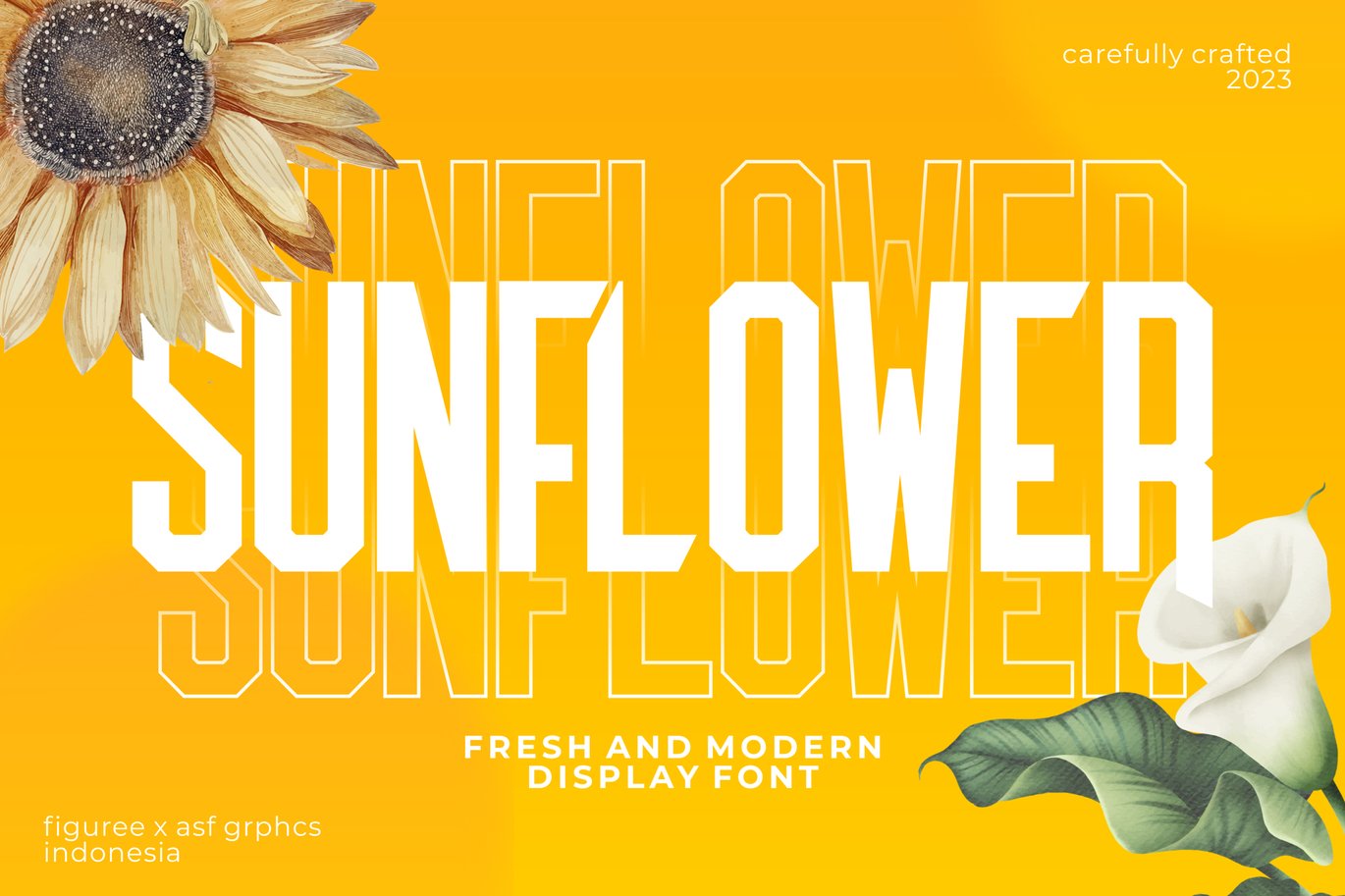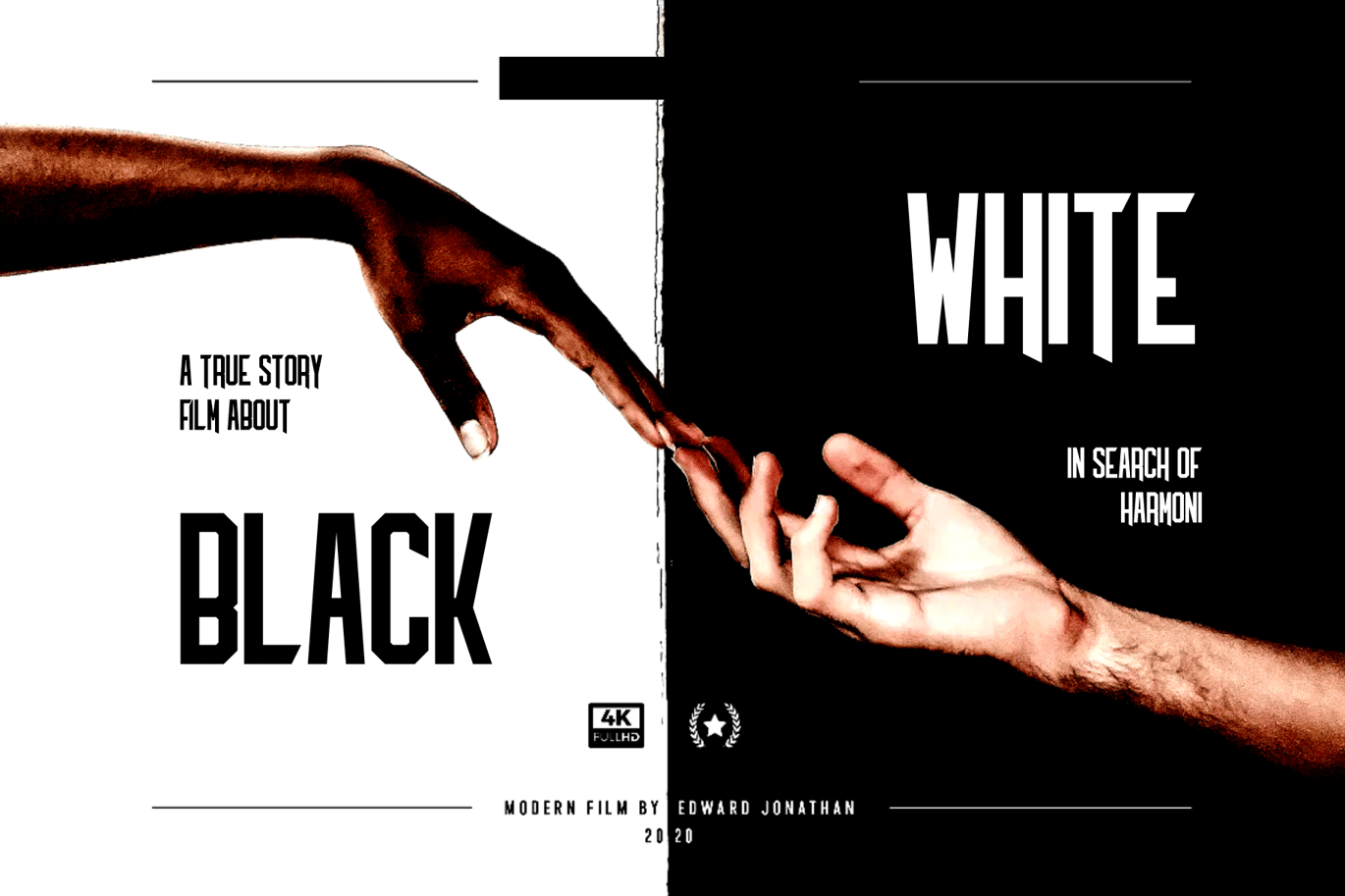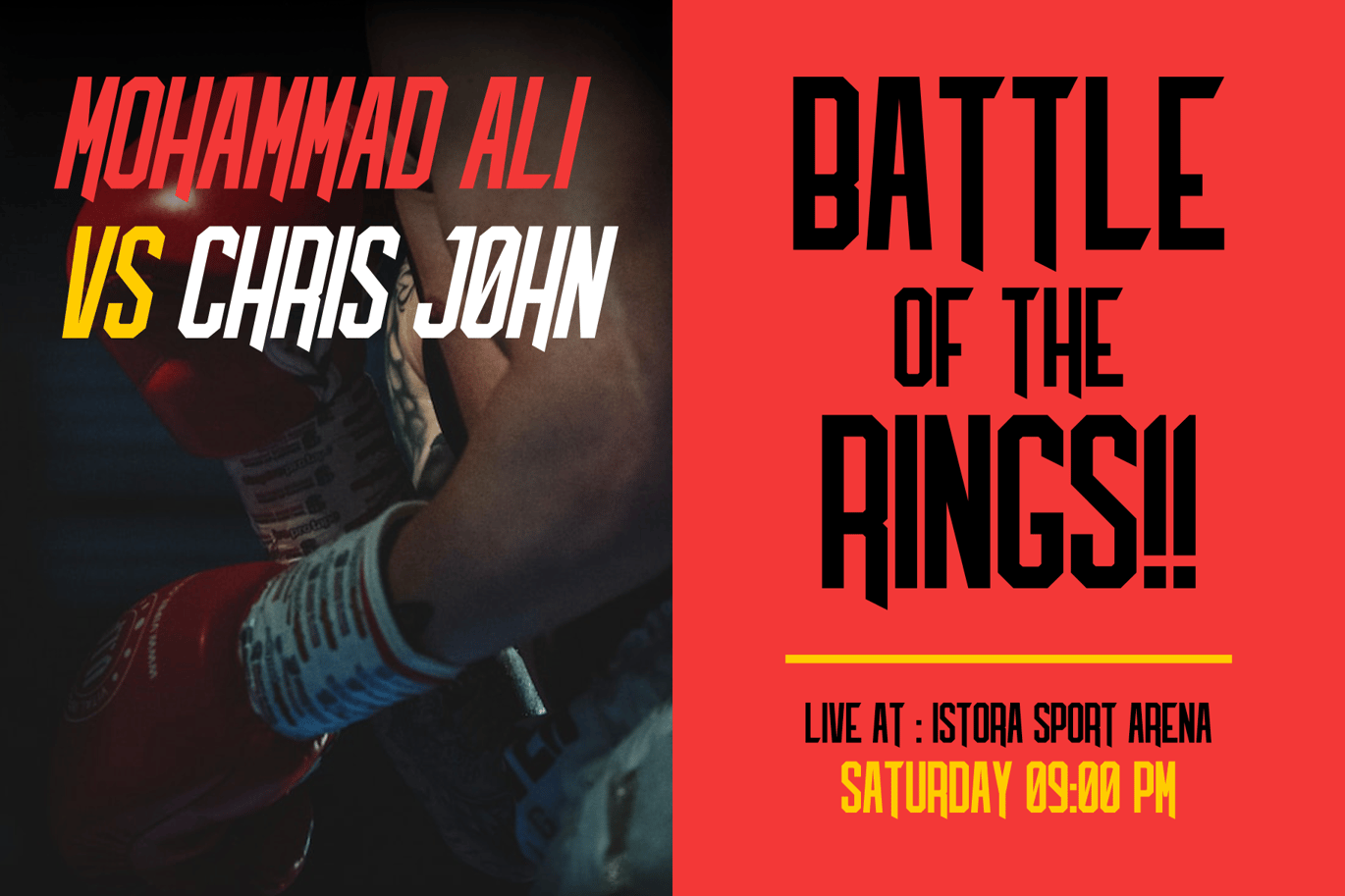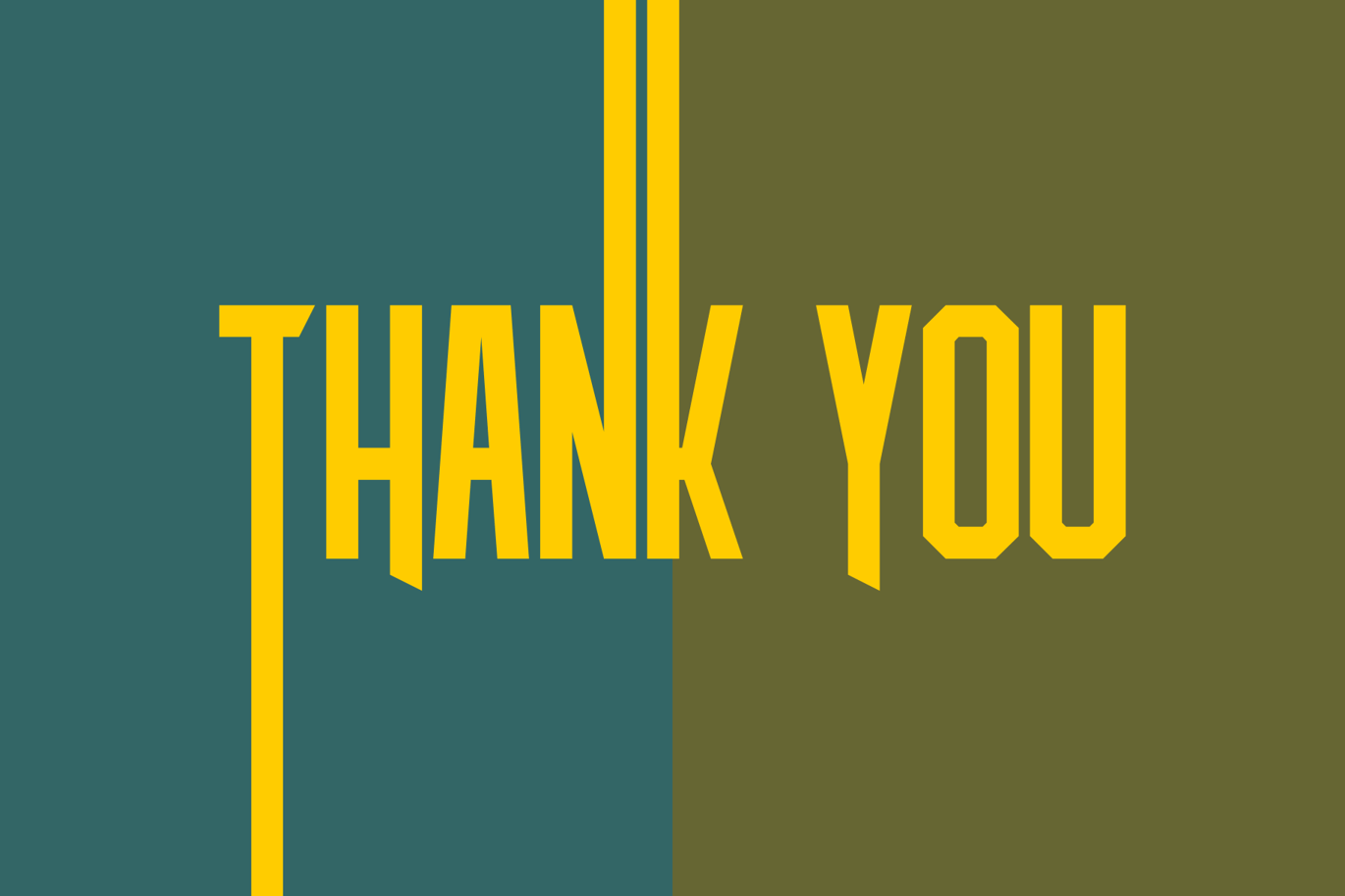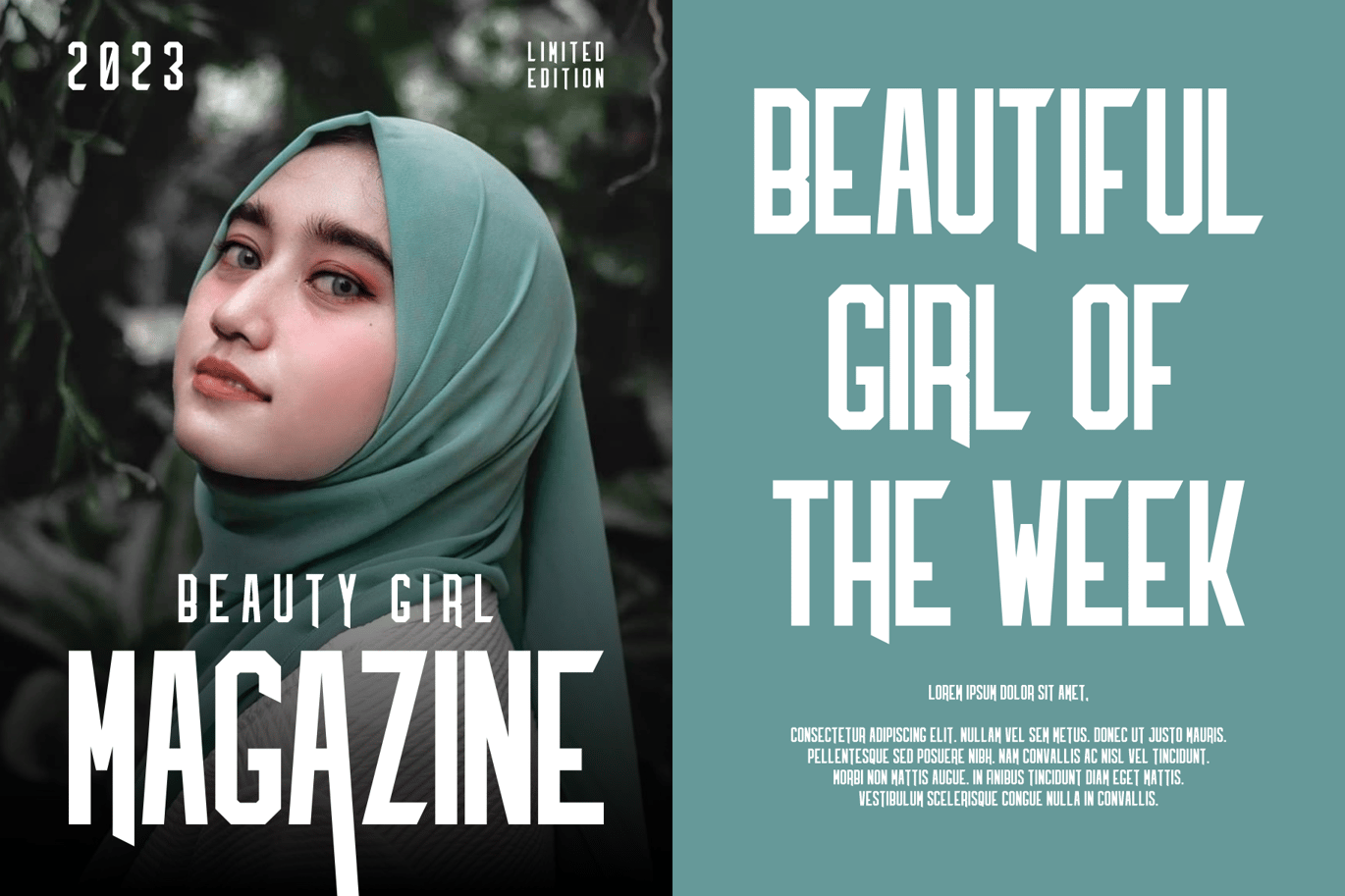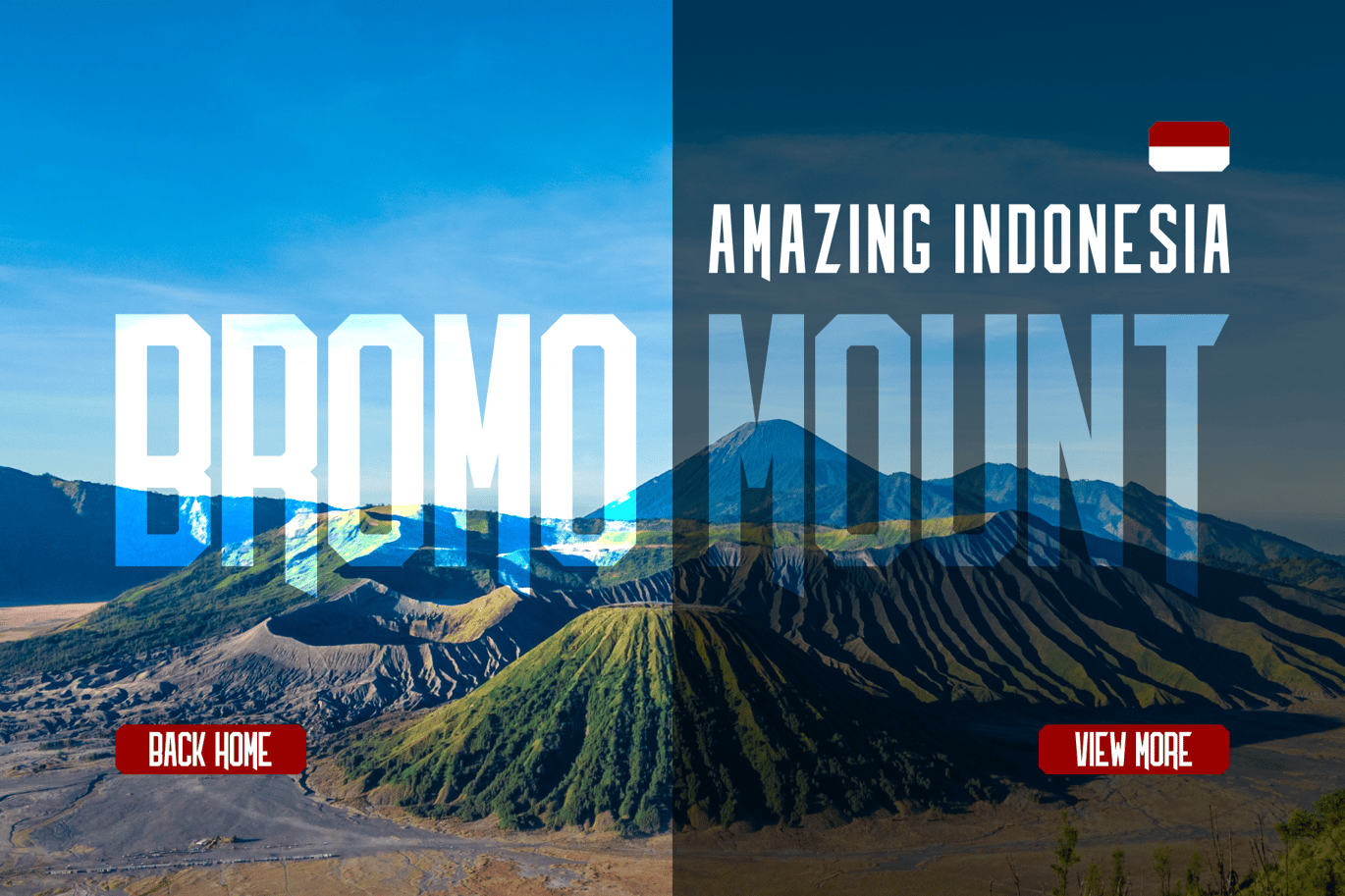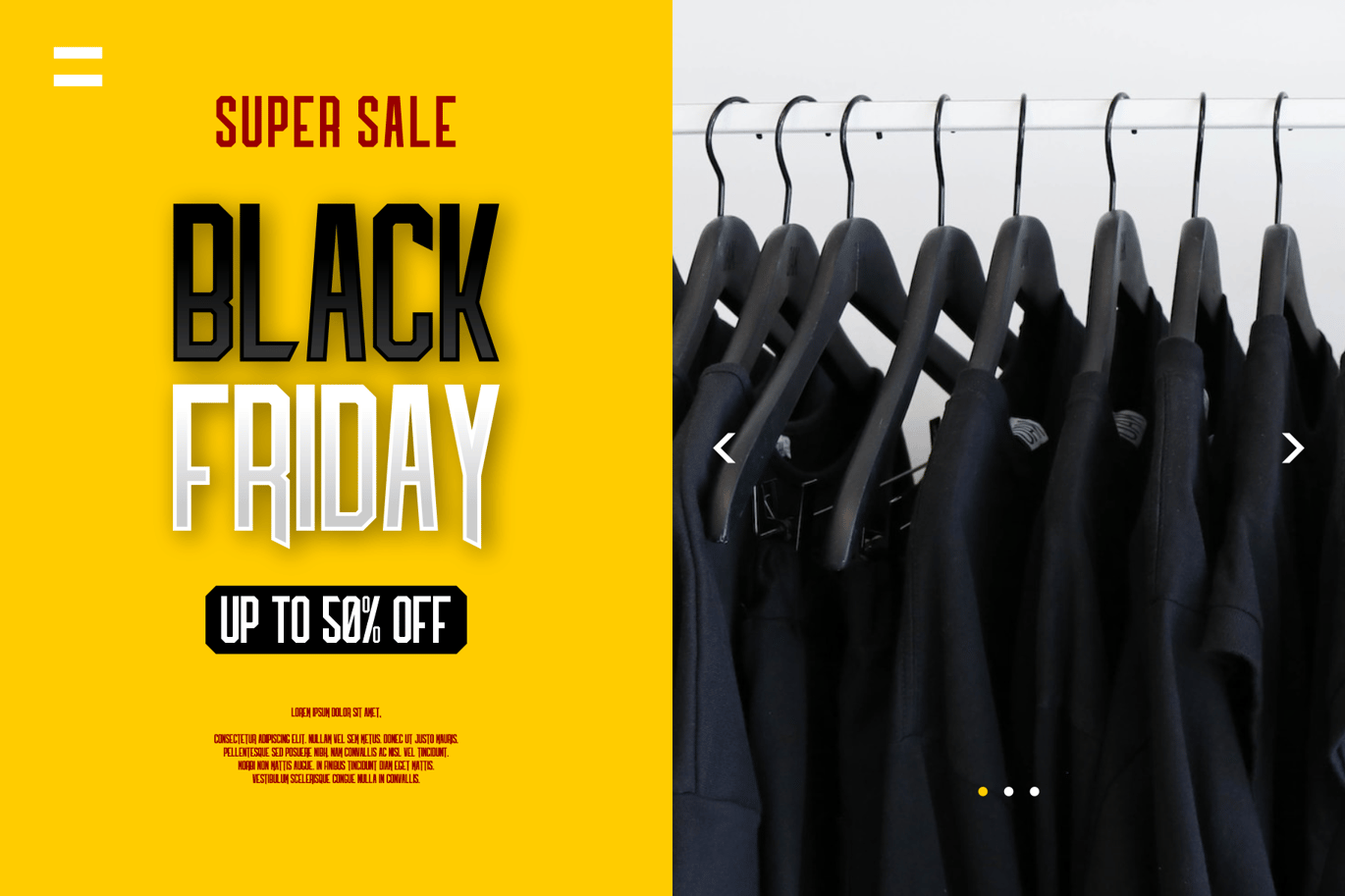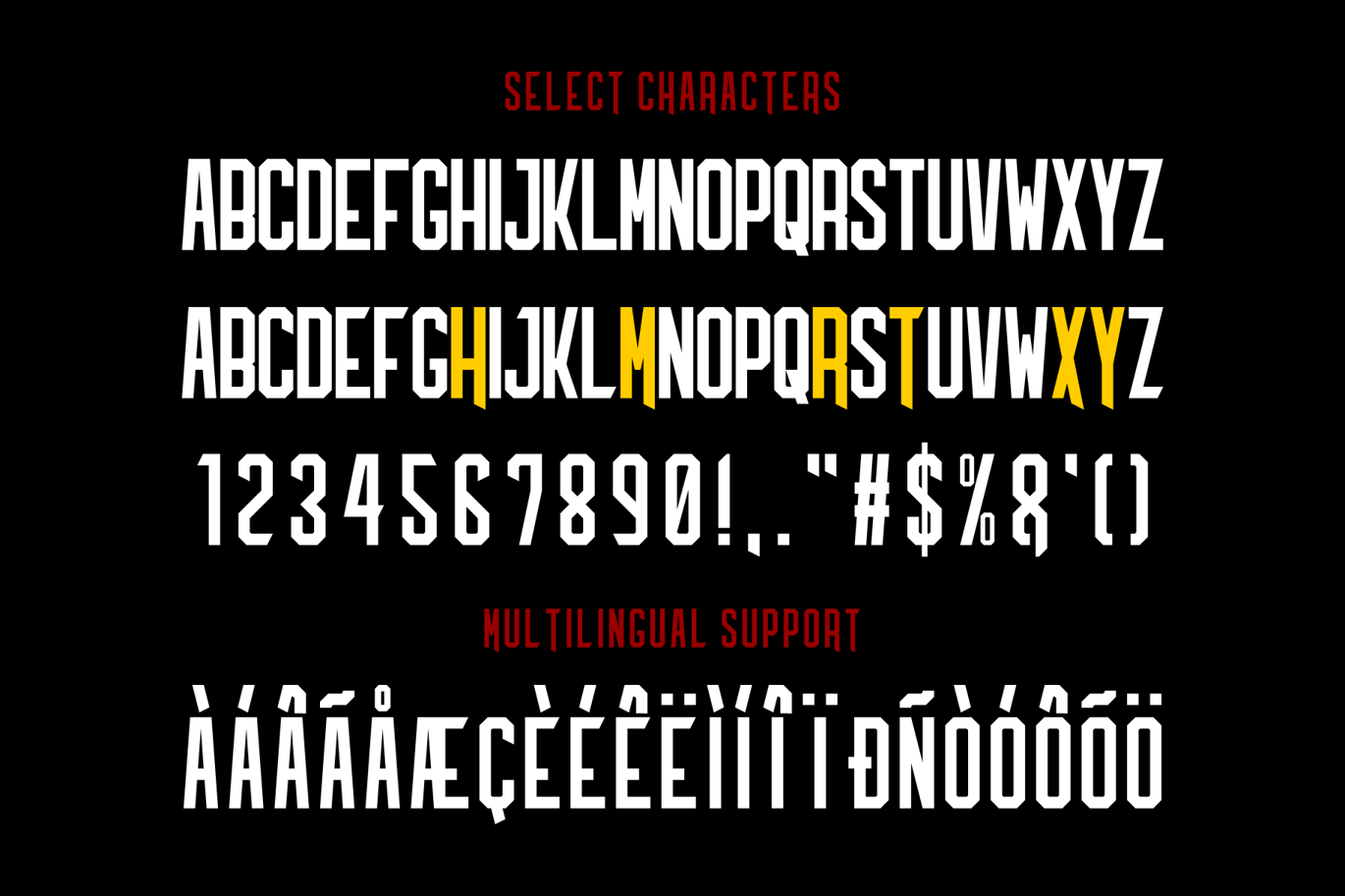
The Sunflower – Fresh & Modern Display Font
The Sunflower is a fresh and modern display font that encapsulates the essence of vitality and contemporary design. With its clean, sleek lettering, it adds a touch of sophistication and freshness to your projects. Whether you’re working on branding, posters, or any design that demands a modern and visually appealing style, The Sunflower infuses your text with a sense of vitality and creativity, leaving a lasting impact with its modern and elegant aesthetic.